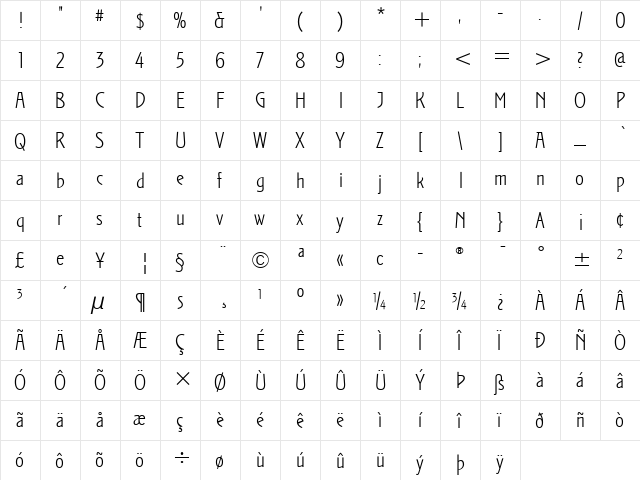
Stoclet ITC Light
Design Context for Stoclet ITC Typeface
Stoclet ITC takes a measured approach to typography — its balanced proportions and neutral character make it a reliable workhorse for both digital and print work. The delicate stroke weight brings airiness and refinement to layouts.